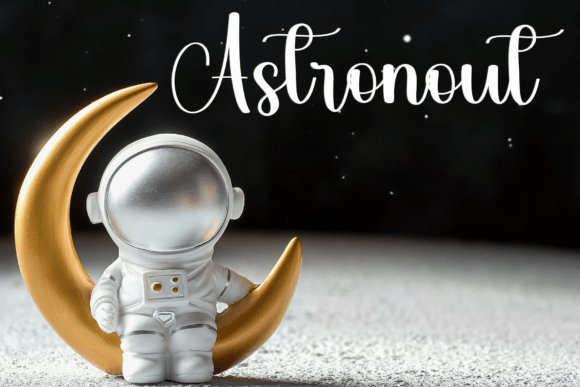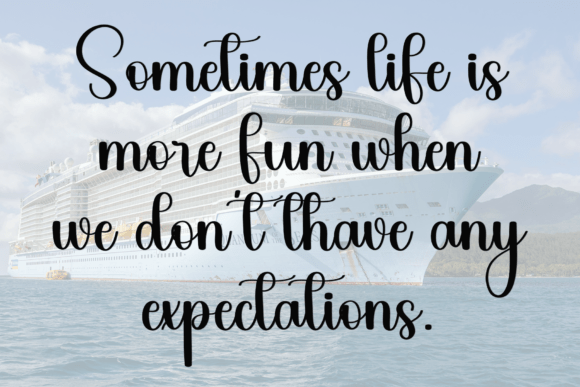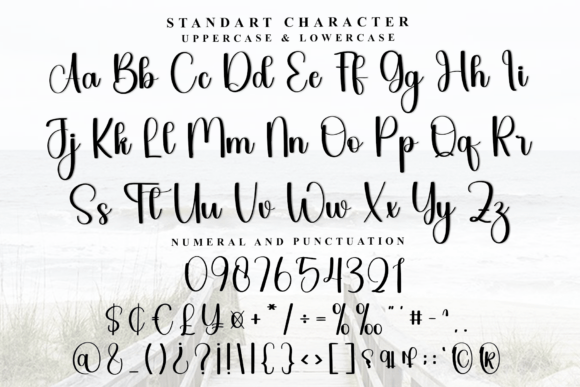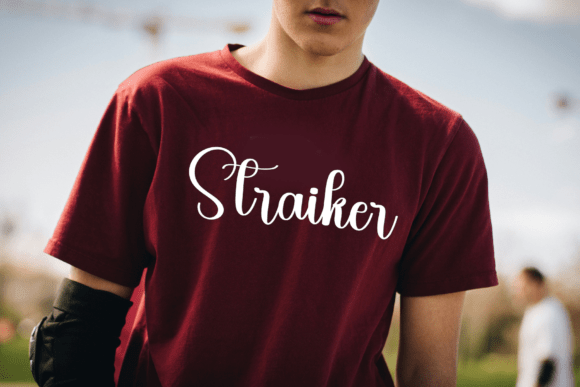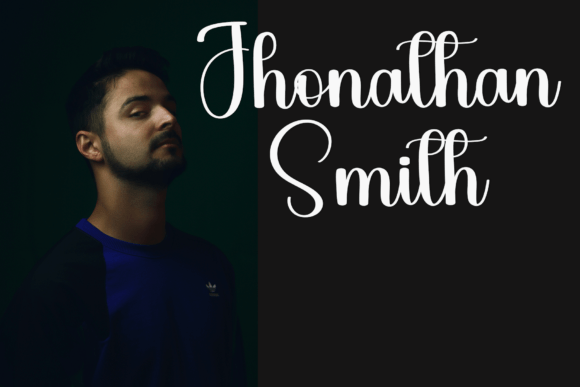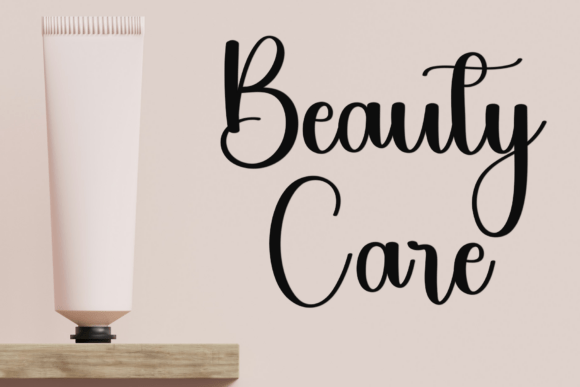
Igniting Creativity: The Allure of Candle Font
Have you ever found yourself lost in a sea of creative possibilities, searching for the perfect font to bring your design to life? It’s a moment we’ve all experienced – that spark of inspiration that sets our imagination ablaze. For designers, it’s the thrill of the hunt, the pursuit of the perfect typography to elevate their work. And for those who’ve been searching, we’re excited to introduce you to Candle Font, a beautiful and eye-catching typeface that’s sure to capture your heart.
Candle Font is designed to add a touch of warmth and elegance to your designs, making it a valuable asset for any creative project. With its soft, unique strokes and distinctive character, this font is perfect for a wide range of applications, from design projects to crafts and more.
Whether you’re a seasoned designer or just starting out, Candle Font is sure to ignite your creativity and inspire your next masterpiece. Its versatility and compatibility with various applications make it an ideal choice for designers looking to elevate their work and connect with their audience on a deeper level.
Candle Font Key Features
- Font Style: Candle Font is a unique, hand-drawn font with a warm, cozy feel, perfect for creating a soft, intimate atmosphere.
- Character Set: The font includes a wide range of characters, including uppercase and lowercase letters, numbers, and punctuation marks.
- Resolution: Suitable for both screen and print use, with a high-resolution design that looks great at various sizes and resolutions.
- Size: Candle Font is available in a range of sizes, from 12pt to 72pt, making it easy to use in various design applications.
- Unique Characteristics: The font’s hand-drawn design and subtle texture give it a distinctive, organic feel that sets it apart from other fonts.
Candle Font Review
Candle Font is a beautiful, handwritten font that I was excited to work with. Here’s my honest review:
- Candle Font has a unique, artistic feel that’s perfect for creative projects. Its elegant, flowing lines make it ideal for titles, headings, and other display text.
- The font is highly legible, even at smaller sizes, making it suitable for body text as well.
- Candle Font comes in a range of weights and styles, giving designers plenty of options to customize their designs.
- Unfortunately, Candle Font is not ideal for large blocks of text, as its flowing lines can make it difficult to read.
- The font’s artistic style can be overwhelming in some cases, so it’s essential to use it sparingly and in the right context.
- As with any handwritten font, Candle Font can be challenging to pair with other fonts, so designers may need to experiment to find the perfect combination.
Candle Font is a beautiful, creative font that’s perfect for designers looking to add a touch of elegance and whimsy to their projects. While it has some limitations, its unique style and high legibility make it a valuable addition to any designer’s toolkit.
Tips for Getting the Most Out of Candle Font
Use Candle Font to create visually appealing and unique titles, headings, and quotes.
Experiment with different font sizes and colors to create a cohesive design.
Combine Candle Font with other design elements, such as images and graphics, to create a professional-looking design.
Candle Font is ideal for:
Event signage and banners
Brand identity and marketing materials
Artistic and creative projects